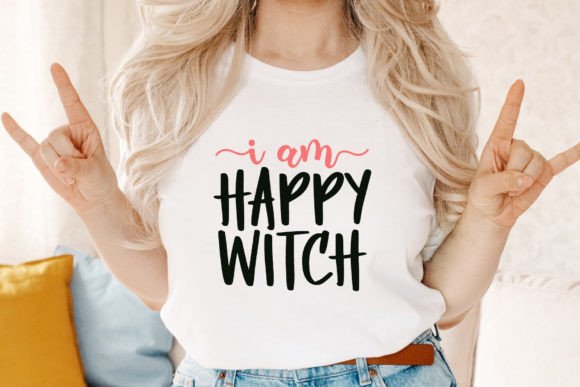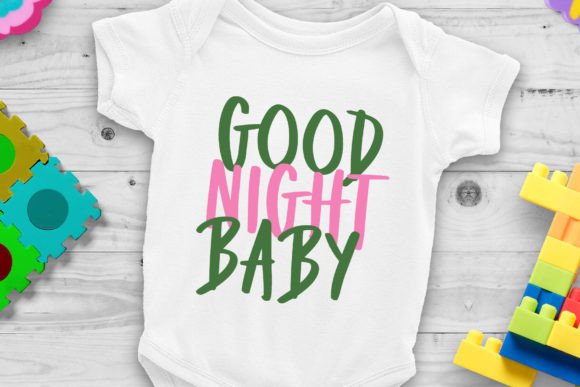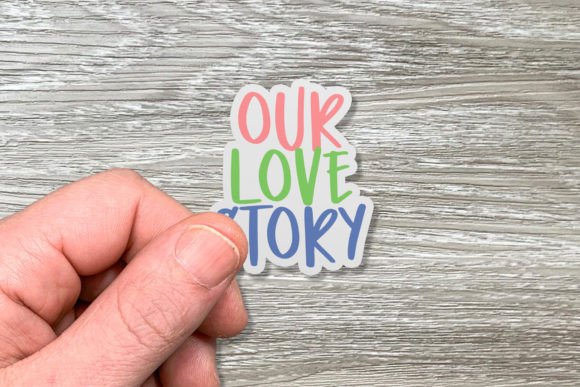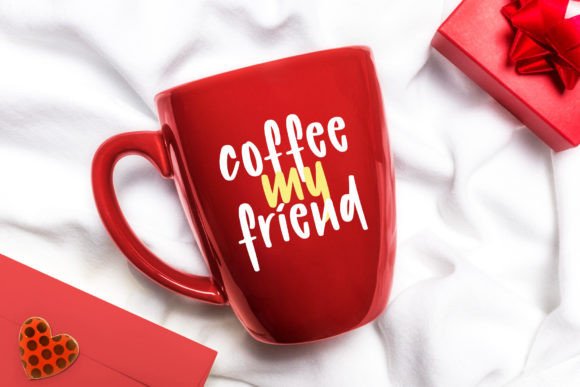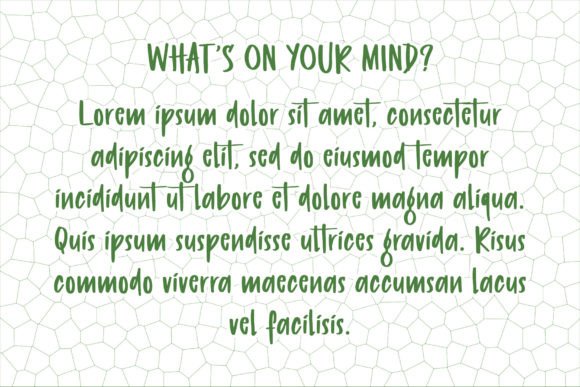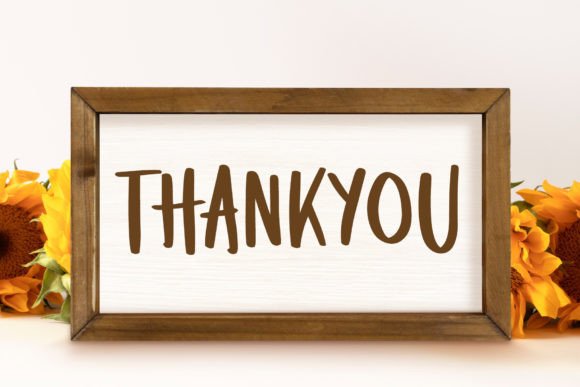
Introduction to Signator Font
Signator is a cute and bouncy handwritten font.
It is fun, playful, and modern This is a pretty font for a design that needs a cute and playful touch, such as back-to-school design, birthday invitations, Valentineโs Day, quotes, crafting, stickers, planners, and many more.